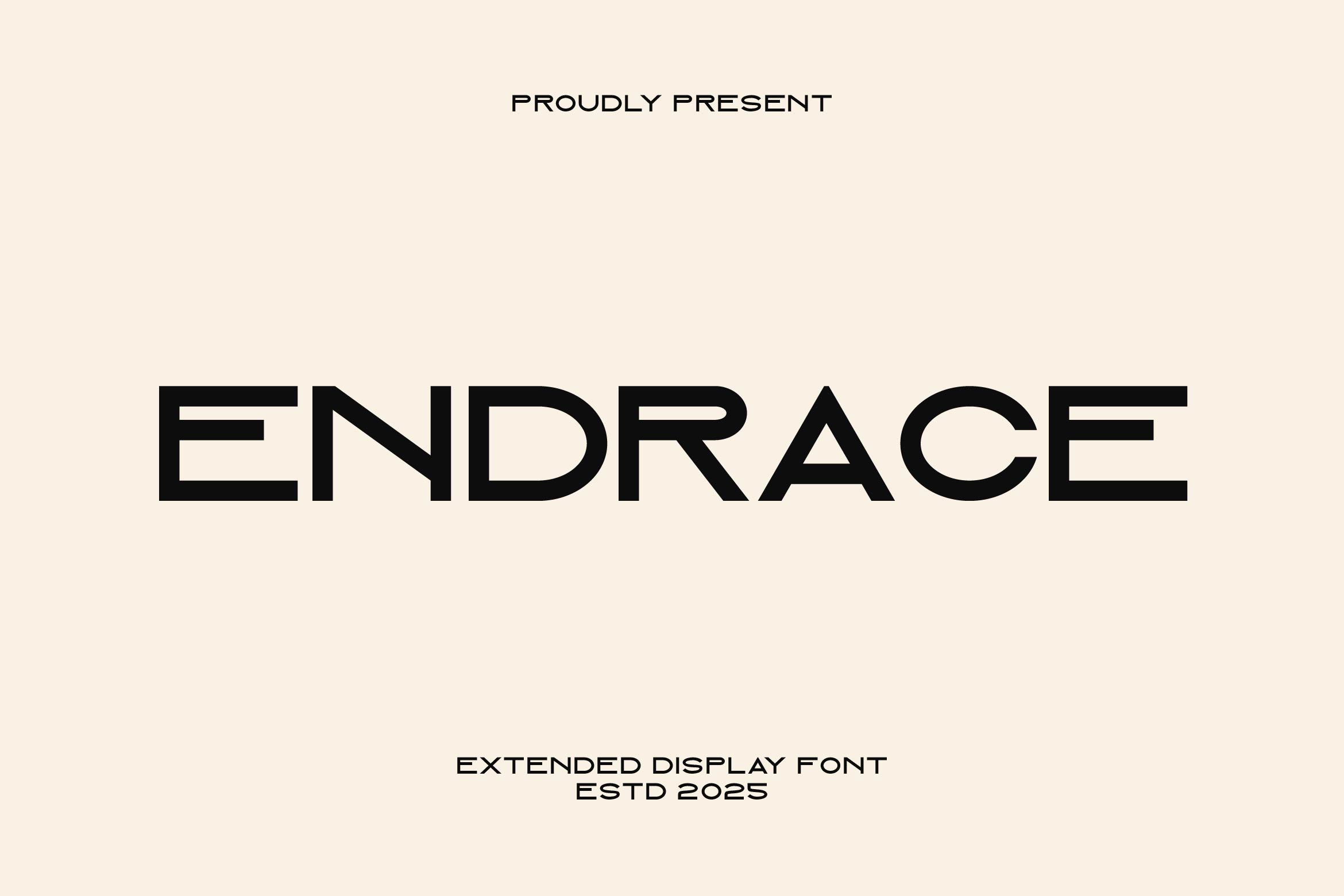
- Endrace Bold Sans Serif Font
Endrace is a bold and contemporary extended sans serif font designed to command attention with its wide proportions and clean structure. Featuring strong geometry, smooth curves, and modern styling, Endrace is perfect for logos, headlines, sports graphics, posters, technology branding, and advertising campaigns that require a powerful visual impact.
Its extended letterforms give a sense of strength and stability while maintaining excellent readability across both print and digital applications. Whether used for branding or high-energy designs, Endrace adds a unique, confident aesthetic to your typography.
The font includes uppercase and lowercase letters, numerals, punctuation, multilingual support, and stylistic alternates for versatile creative options.
Make your message bold and unforgettable with Endrace — the extended sans serif font that blends modern design, wide proportions, and striking visual presence.